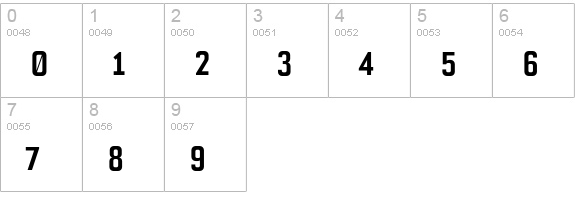
Bourgeois BoldCond is a sophisticated and elegant font that exudes a sense of luxury and refinement. With its bold and condensed design, this typeface is perfect for creating stylish headings and eye-catching titles. The clean lines and sharp edges of Bourgeois BoldCond give it a modern and professional look that is sure to impress. What sets Bourgeois BoldCond apart is that it is not only visually stunning, but also free to download. That's right, you can get your hands on this stunning font at no cost from FontsMarket.com. Whether you're a designer looking to elevate your projects or a business owner seeking a polished branding solution, Bourgeois BoldCond is the perfect choice. Download it today and add a touch of sophistication to your designs.